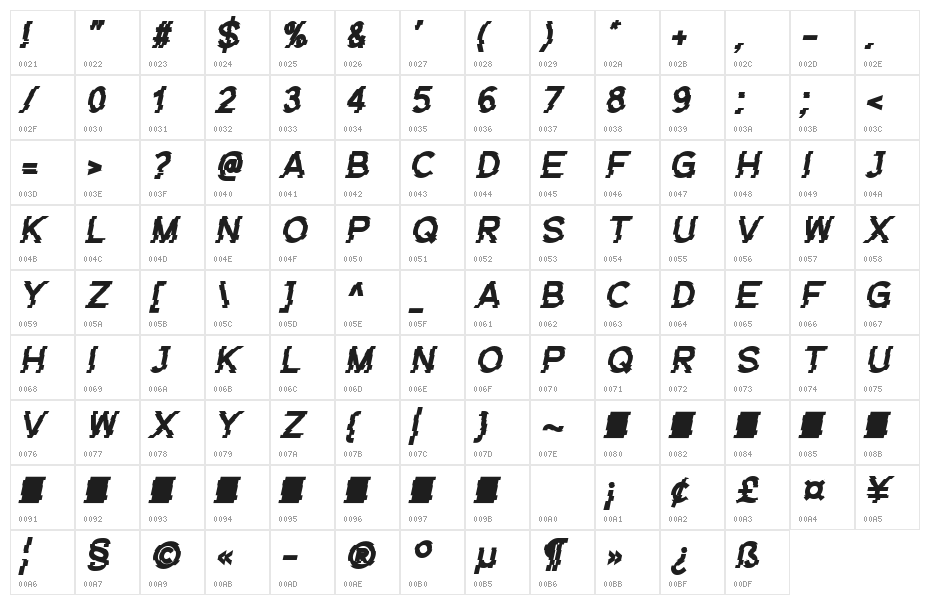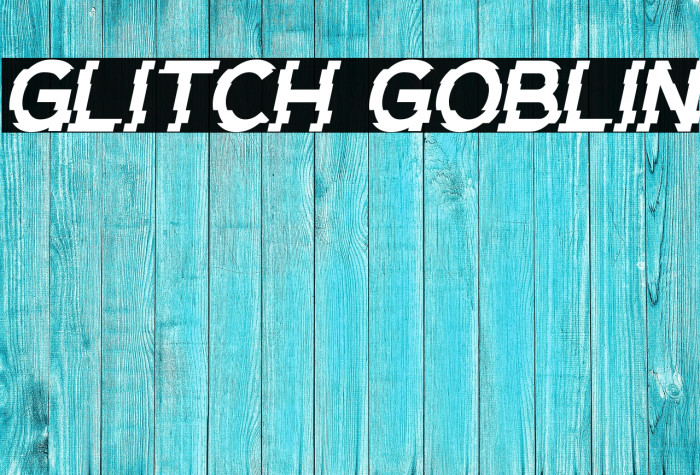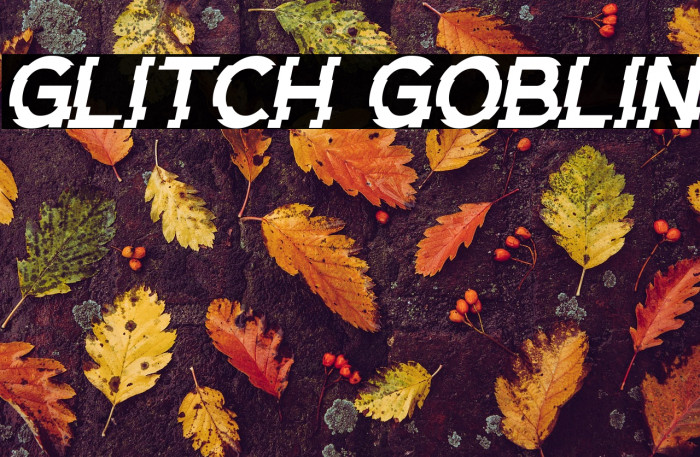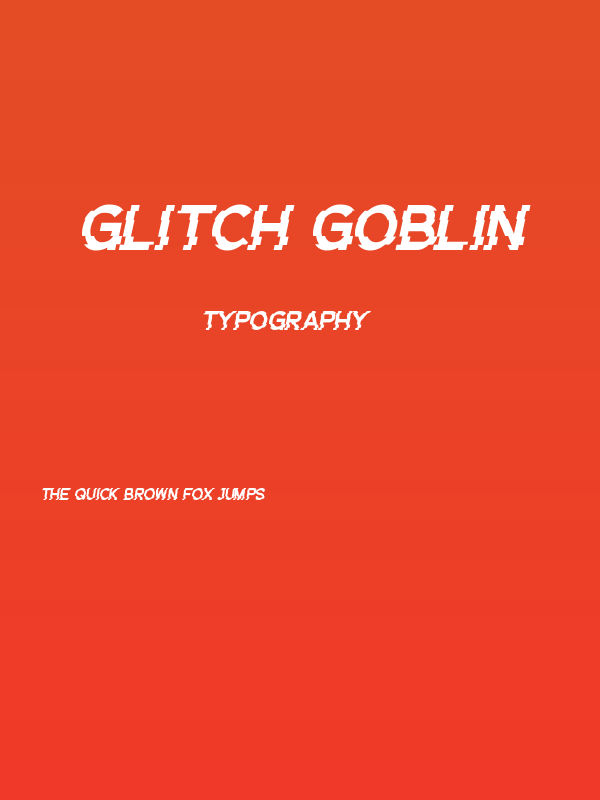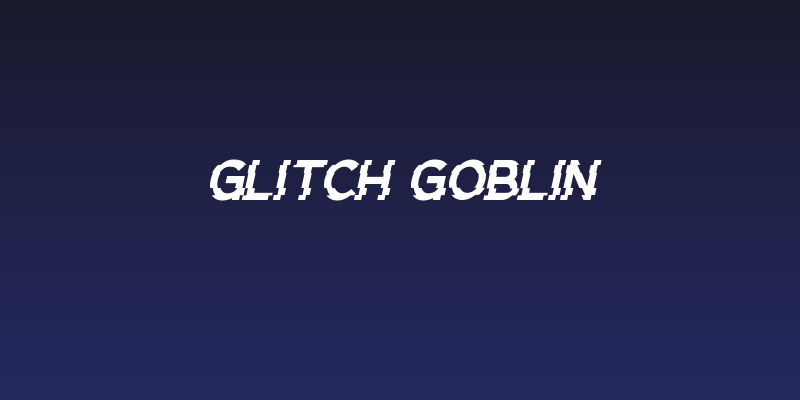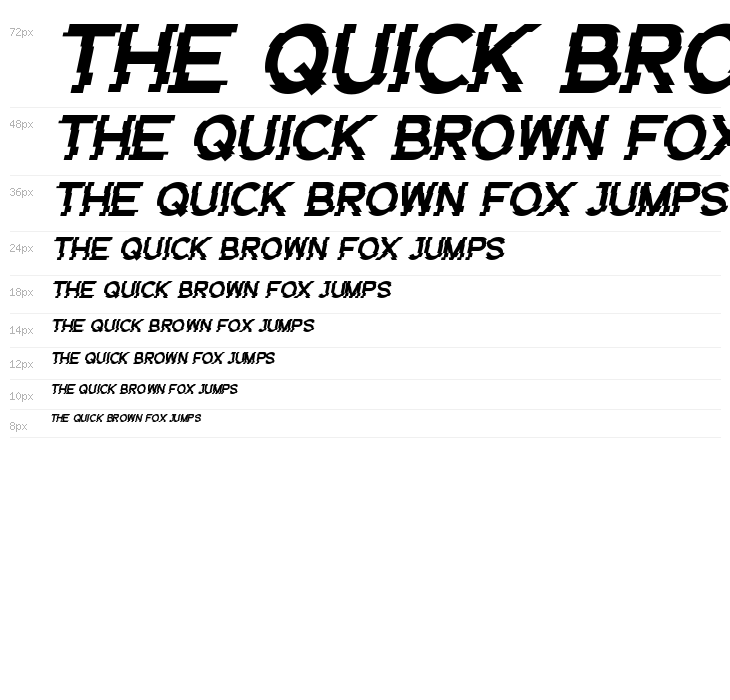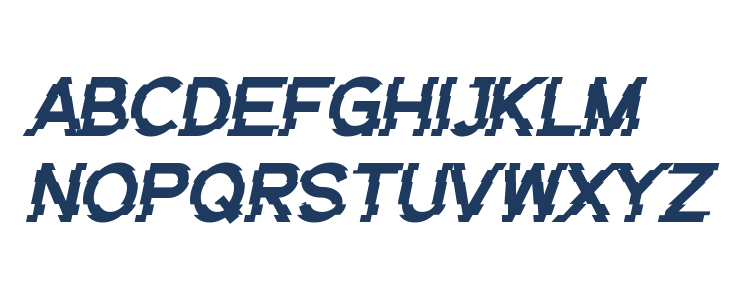
Glitch Goblin Font
Glitch Goblin Description
This font features a bold and dynamic style with a distinct glitch effect, giving it a modern and edgy appearance. The characters are italicized, adding a sense of motion and urgency. The bold weight ensures strong visibility, making it suitable for attention-grabbing designs. The spacing between characters is relatively tight, enhancing the compact and impactful look. The high contrast in stroke thickness further emphasizes the glitch effect, creating a visually striking appearance. This font is perfect for projects that require a futuristic or digital aesthetic, such as tech-related branding, video game titles, or digital art.
| Proposed Projects | Tech branding, video game titles, digital art, futuristic posters. |